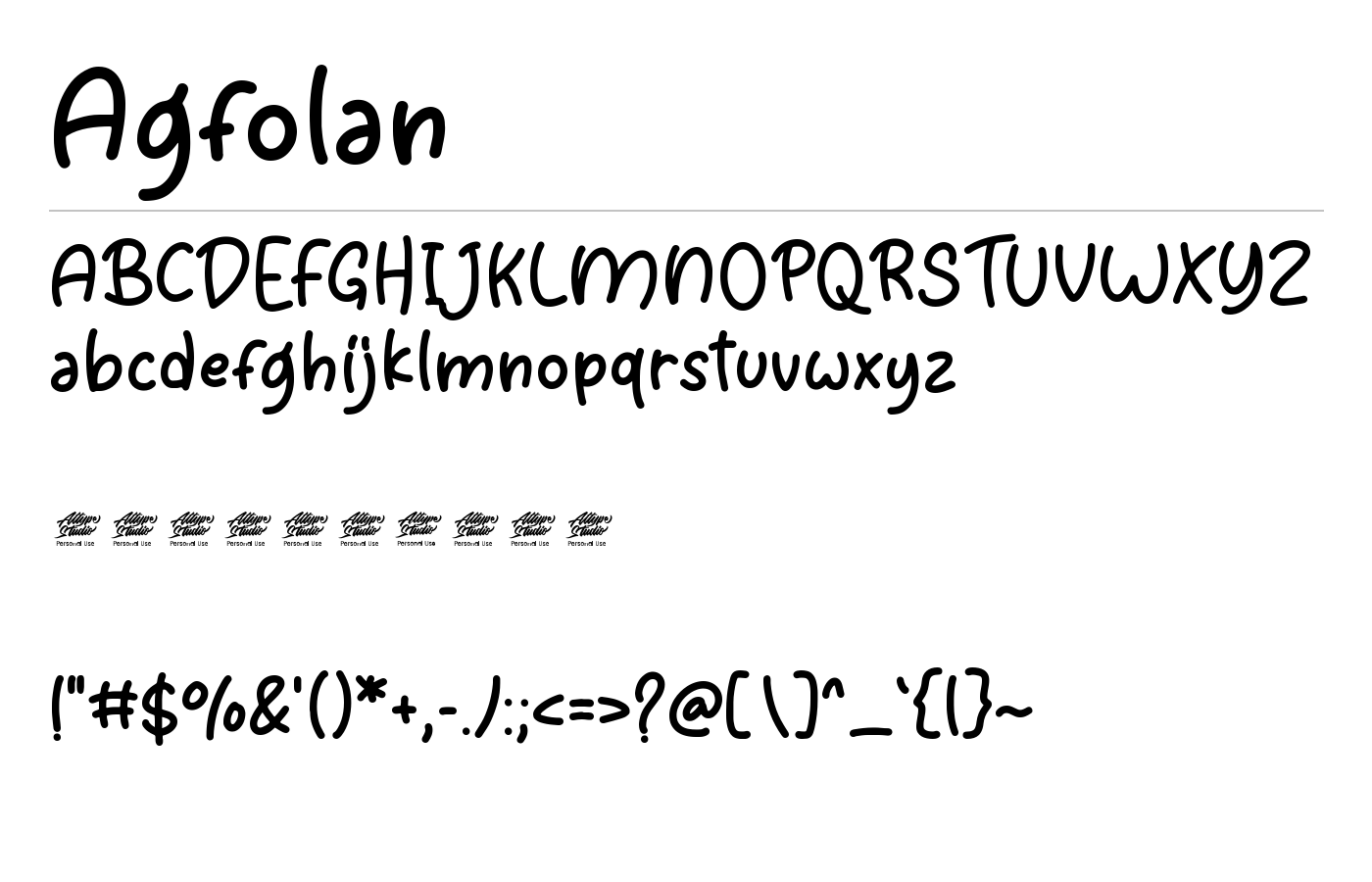
Agfolan is a playful and casual handwritten sans serif font with rounded edges and a friendly, approachable feel. Its moderate weight and open letterforms make it easy to read, while the slightly irregular, organic strokes add personality and warmth, perfect for informal branding, children’s materials, or creative projects. This font works well for logos, invitations, and any design needing a cheerful and personal touch.
Agfolan Font
About Agfolan Font
| Font family | Agfolan Font |
| Designer | Fadli Ramadhan Iskandar |